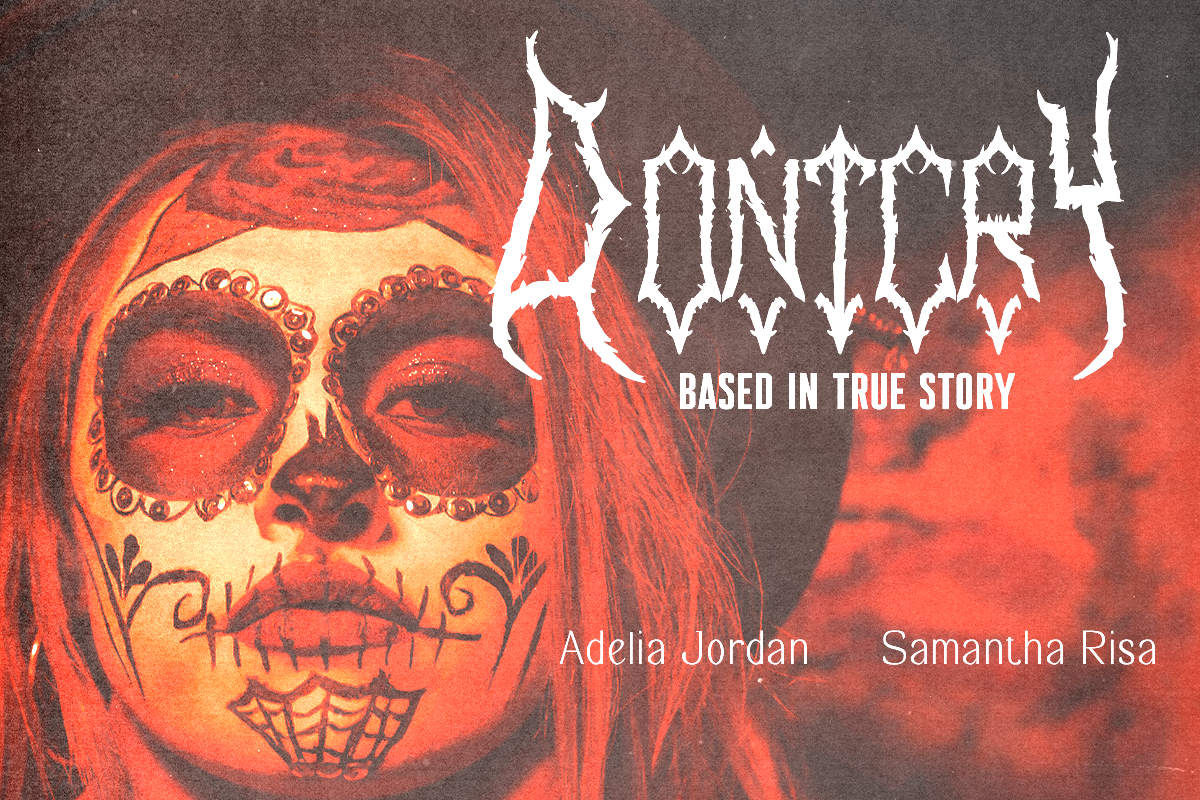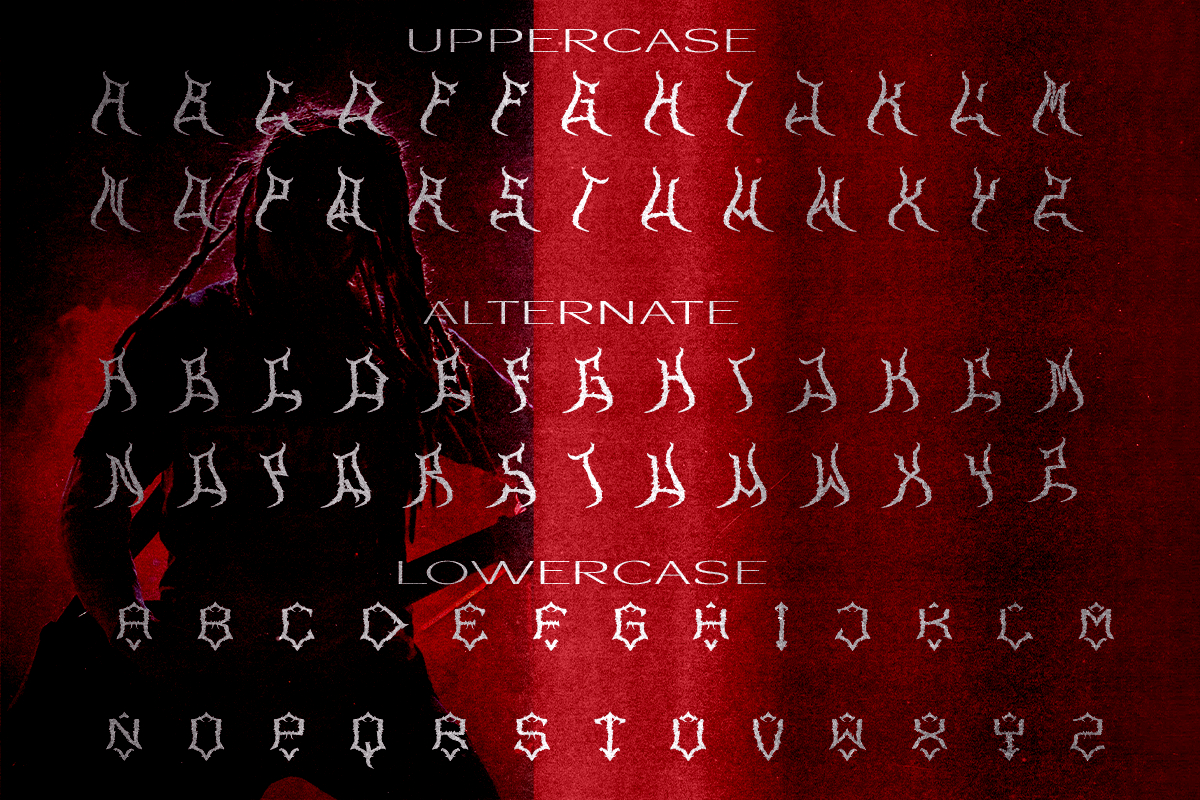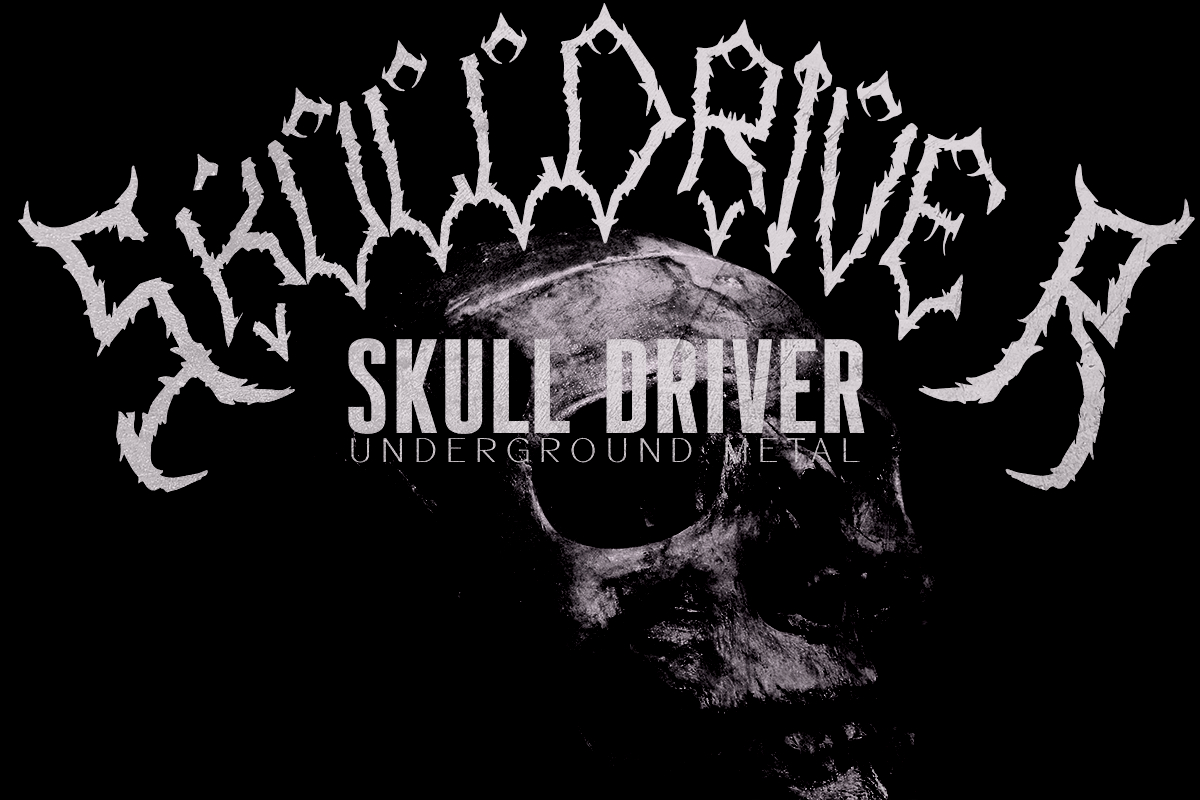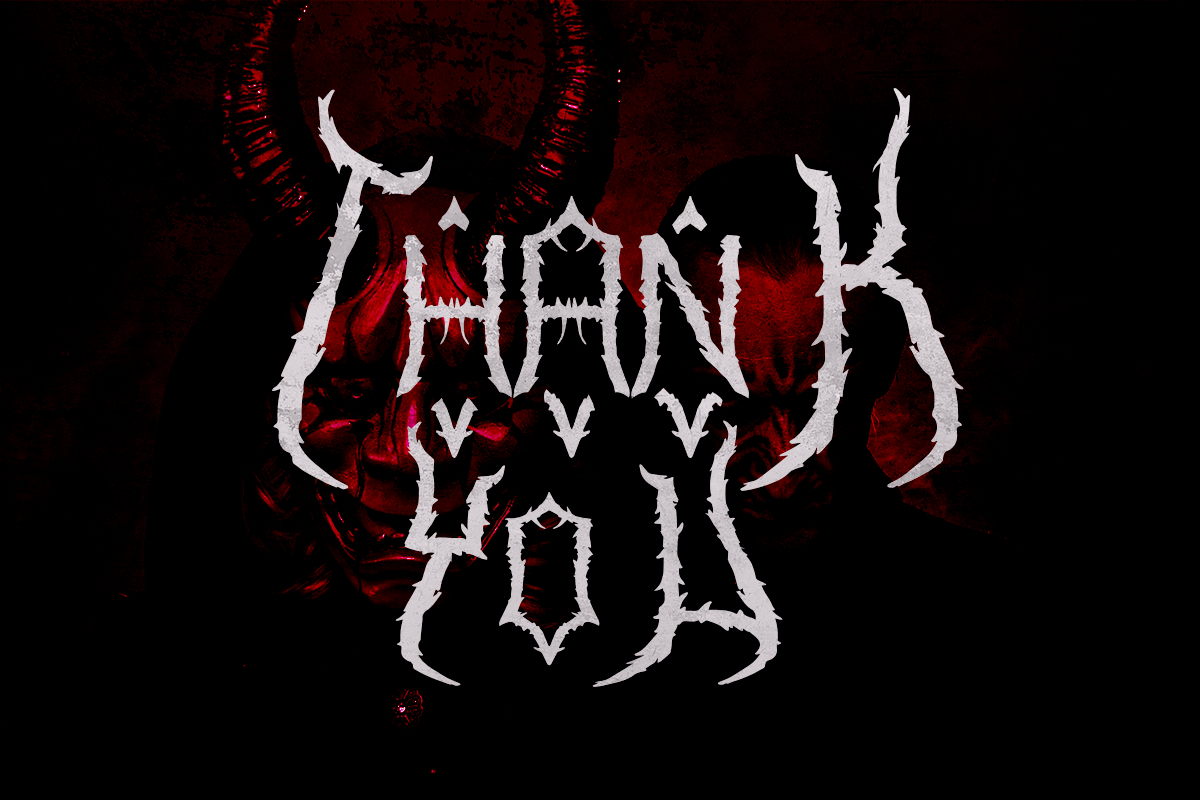
Monster Wings Font
About Monster Wings Font
Introducing Monster Wings Font: Unleash the Savage Power of Death Metal Typography!
Prepare to be engulfed in darkness with Monster Wings Font, a ferocious and formidable typeface crafted specifically for the brutal realm of death metal. This font embodies the monstrous and primal essence of the genre, commanding attention with its razor-sharp edges and imposing presence.
Monster Wings Font boasts a design that is both menacing and commanding, reminiscent of ancient beasts emerging from the shadows to wreak havoc upon the world. Each letter is a testament to raw power and unrelenting aggression, making it the perfect choice for bands and designers seeking to convey the savage intensity of death metal music.